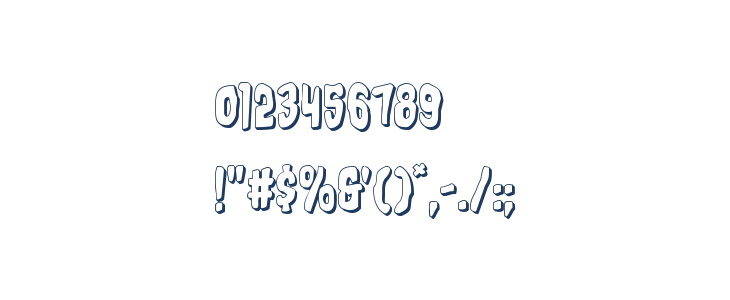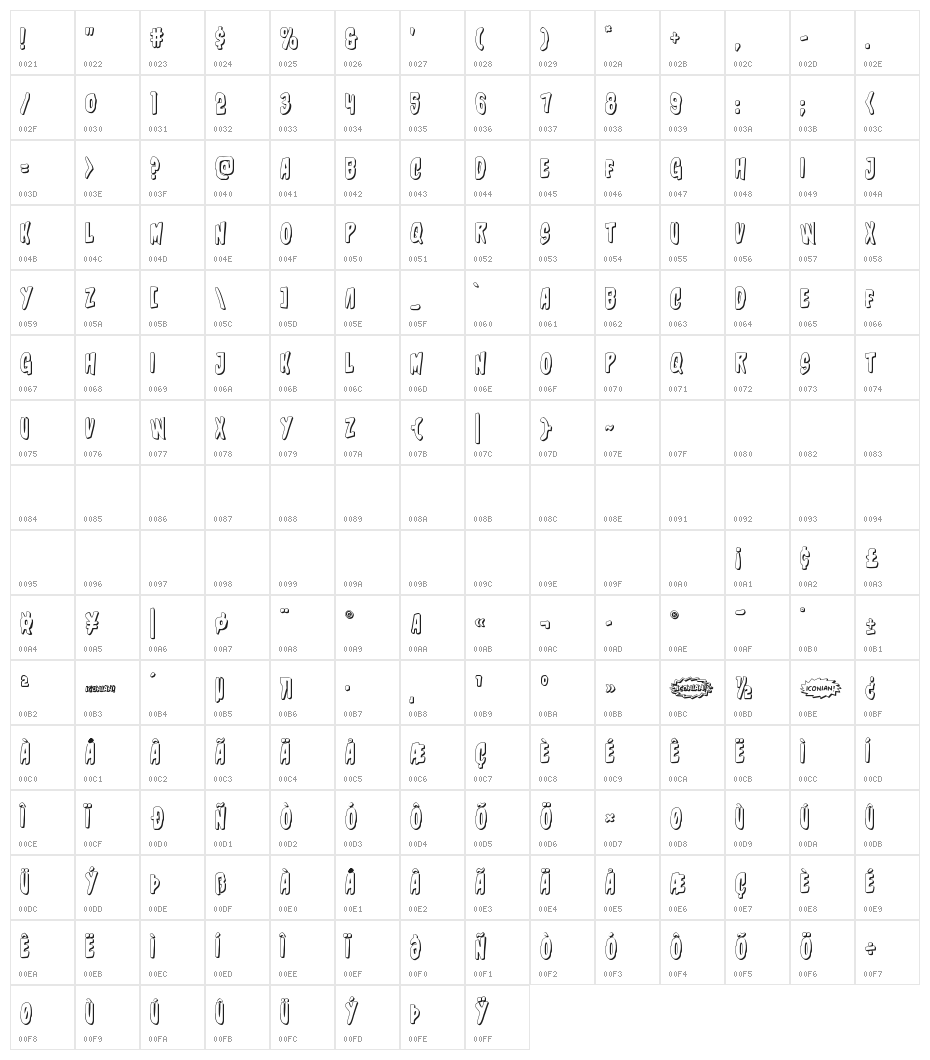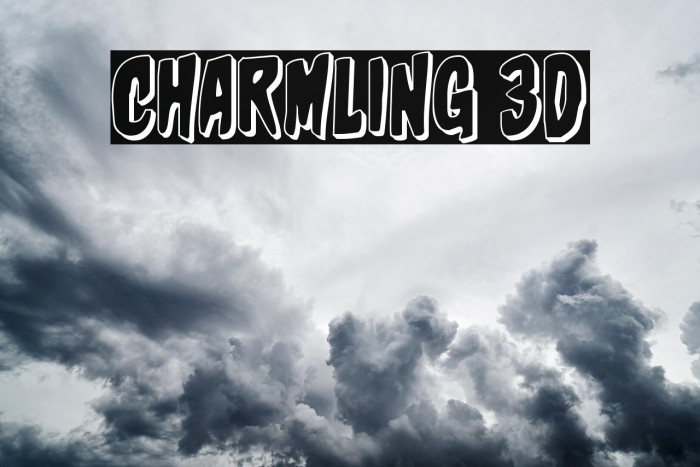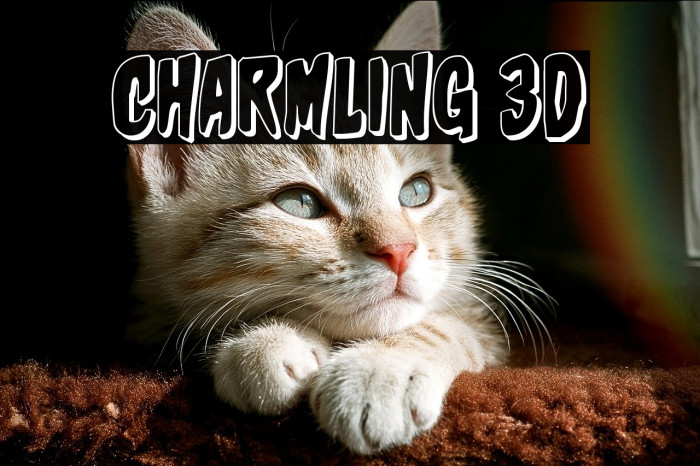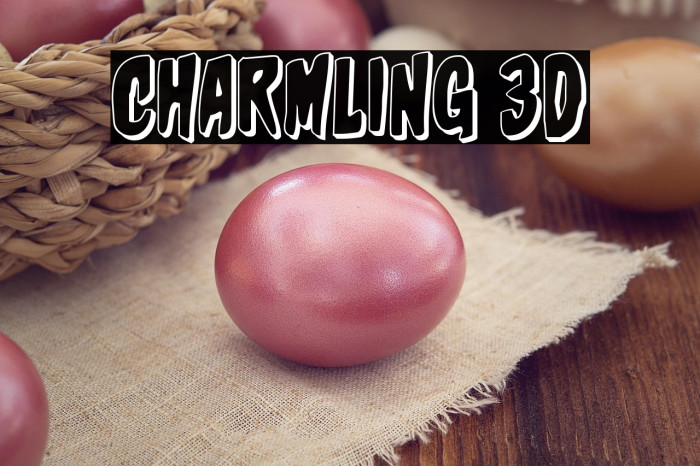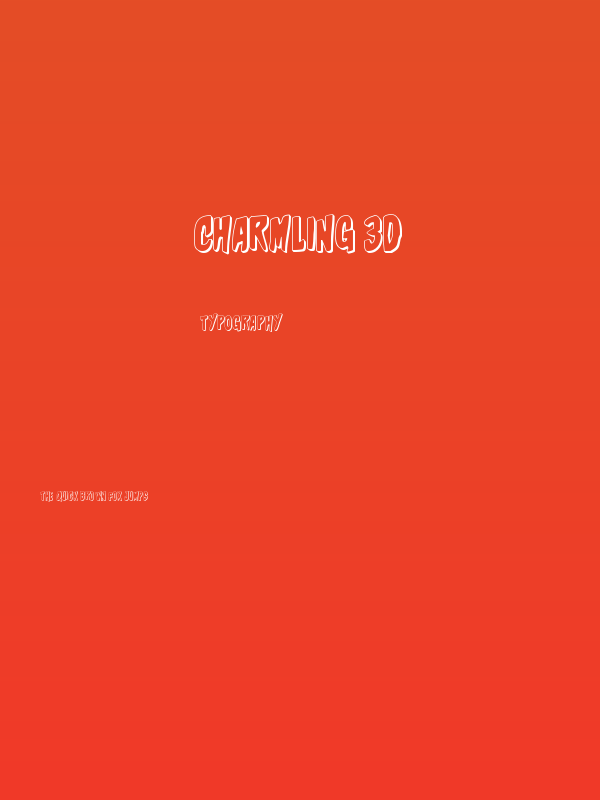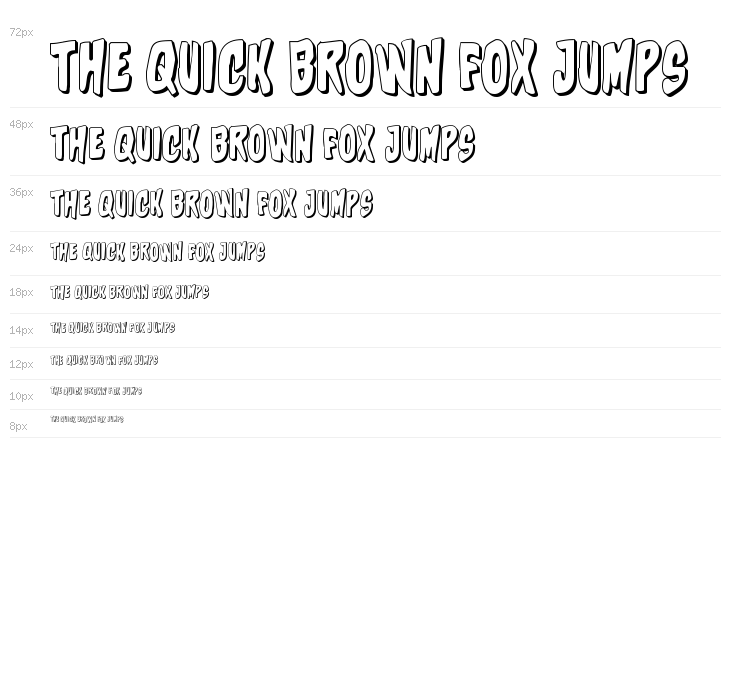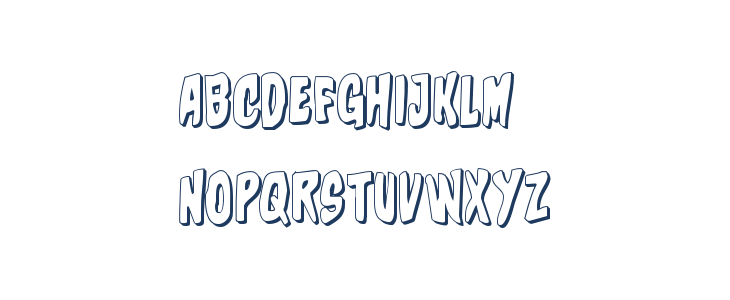
Charmling 3D Font
Charmling 3D Description
This font features a playful and bold 3D effect, giving each character a sense of depth and dimension. The letters are rounded and slightly irregular, adding a whimsical and informal touch. The uppercase and lowercase letters maintain a consistent style, with thick strokes and a shadow effect that enhances the three-dimensional appearance. The numerals and special characters follow the same design principles, ensuring a cohesive look across all glyphs. This font is ideal for projects that require a fun and eye-catching aesthetic.
| Use Case | Headlines, Posters, Branding |
| Proposed Projects | Perfect for children's books, playful branding, posters, and any design needing a fun, eye-catching font. |